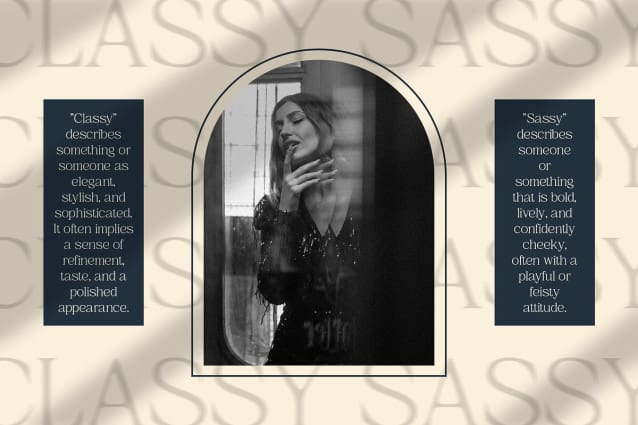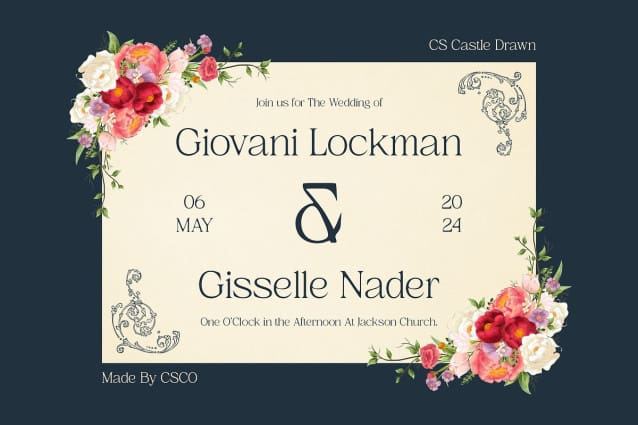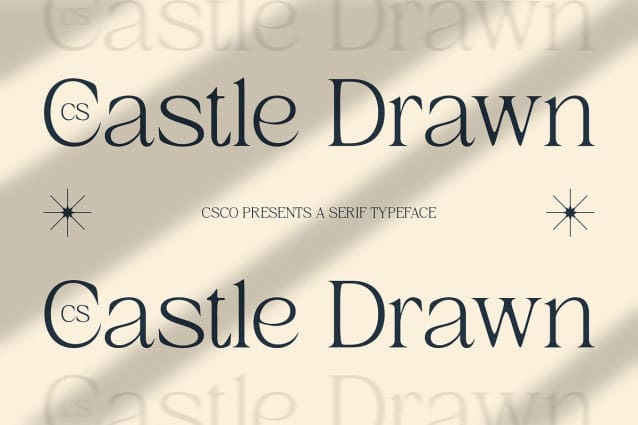
CS Castle Drawn Font
CS Castle Drawn is a stunning modern serif font that effortlessly combines elegance with a unique artistic touch. Its design highlights the beauty of typography through gracefully crafted forms and intricate details, resulting in a font that exudes sophistication. The clean lines and balanced proportions create a professional appearance, making it an ideal choice for a wide range of design applications where a refined aesthetic is paramount.
Sophisticated Aesthetic for Diverse Applications With its versatile design, this drawn font is perfect for projects that require a blend of tradition and modernity. Whether you’re working on formal invitations, luxury branding, or high-end printed materials, this font elevates your design with its sophisticated look. The elegance of this drawn font shines in corporate communications, event programs, and promotional materials, ensuring that your message is delivered with style and grace.
Artistic Depth through a Drawn Effect The unique drawn effect infuses this font with a character that sets it apart from typical serif fonts. Each letter is thoughtfully designed, enhancing depth and personality while maintaining a clean and professional look. This artistic quality adds warmth and approachability, making the font suitable for both traditional and contemporary contexts. The contrast between the font’s classic roots and its modern execution creates a compelling visual that resonates with audiences.